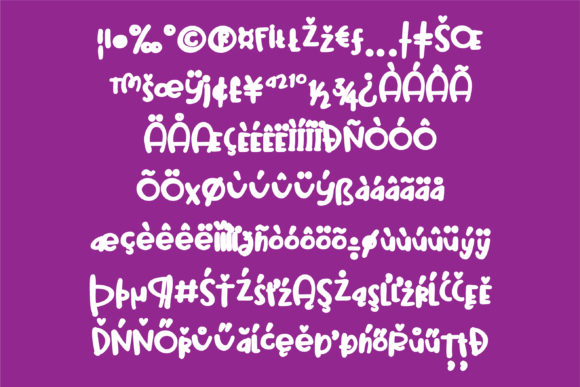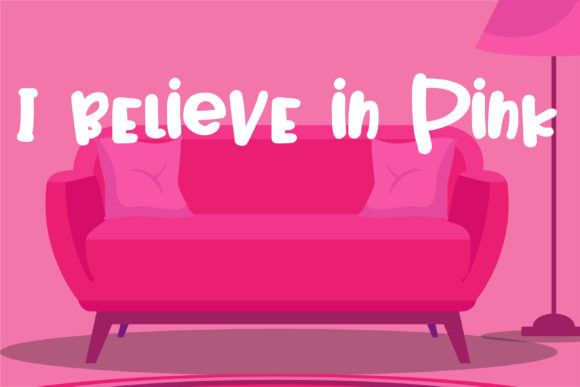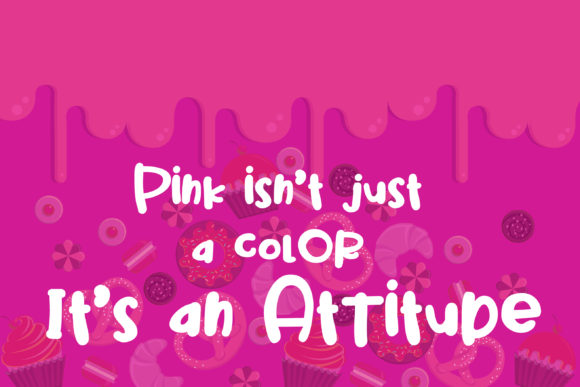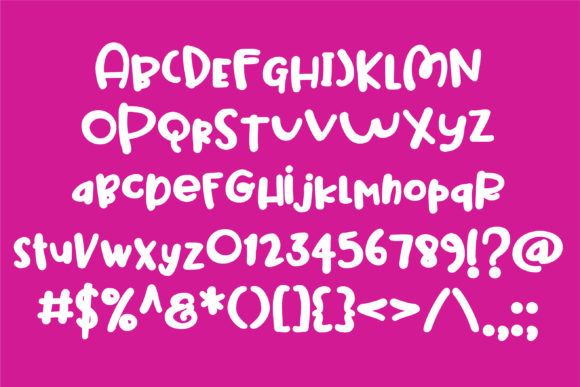
Magenta Pillow Font
About Magenta Pillow Font
This hand-written font brings a dynamic and creative dimension to your projects with its two interchangeable cases, allowing you to mix them up as you type and achieve diverse and artistic appearances. The versatility of this font invites experimentation, offering endless possibilities for unique and personalized designs.
What sets this hand-written font apart is its adaptability and the option to seamlessly switch between cases, adding an extra layer of creativity to your typography. This feature allows you to create visually intriguing combinations, making your text a canvas for artistic expression.
For those seeking a thinner variation, the font offers an alternative with Magenta, showcasing a much thinner version. Magenta provides a contrasting style, maintaining the handwritten charm while introducing a sleeker and more delicate aesthetic. This diversity within the font family ensures that your creative choices are not limited, giving you the freedom to tailor the appearance to suit the mood and context of your project.
Whether you’re crafting designs for digital or print mediums, this font’s dual-case flexibility and the availability of Magenta offer a wide range of applications. From eye-catching headlines to artistic compositions, this font allows you to play with the visual narrative and create compelling and varied typographic expressions.
In essence, this hand-written font is not just a tool for conveying words; it’s a creative ally that empowers you to experiment and innovate with your typography. The interplay between cases and the addition of Magenta present an opportunity for designers to craft visually engaging and distinctive text that captures attention and adds an extra layer of personality to their projects.